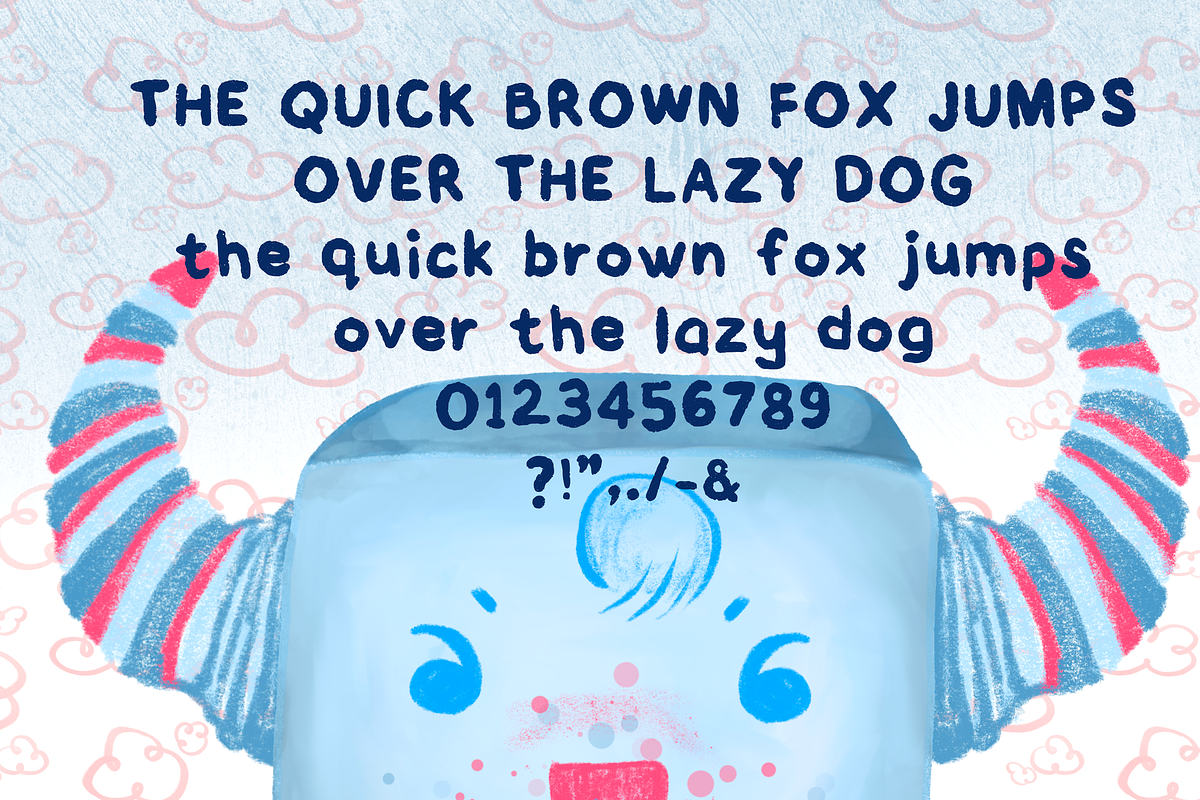
Wonky - handwritten playful font
Wonky is a playful handwritten font perfect to add a casual childish flair to your design. You can use this for book covers, or any kind of banners. You can it these for graphic design, textures, logos, banners, invitations, scrapbooking, card making, planner stickers/elements, etc.
- Basic Punctuations - !"&(),-./?